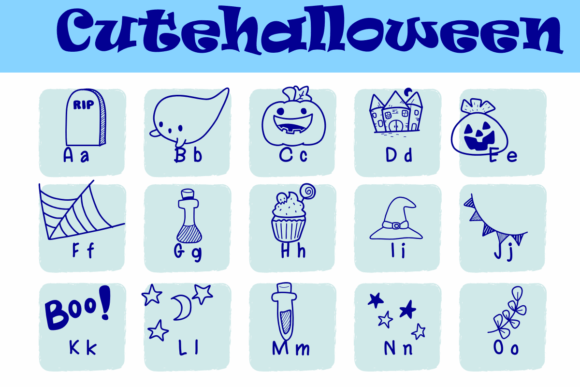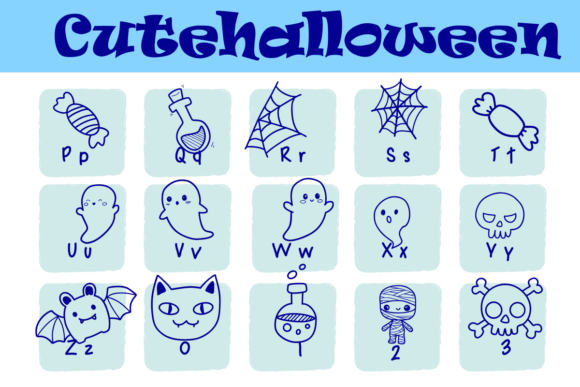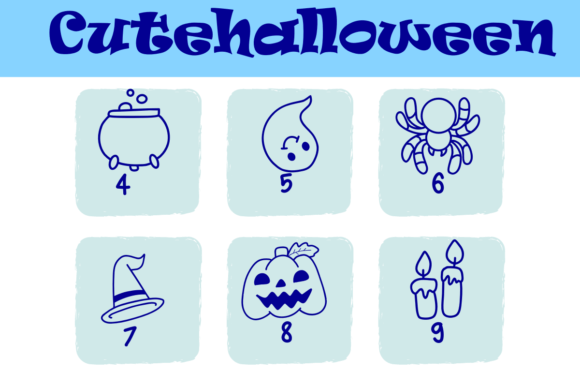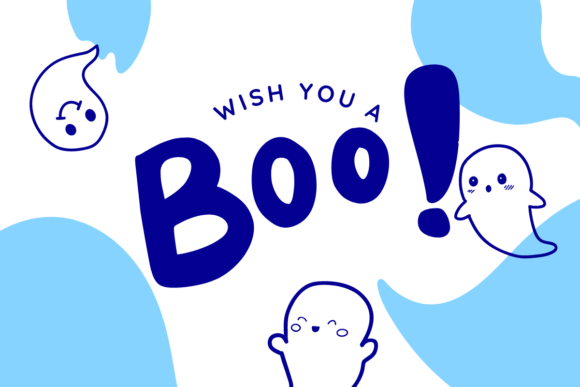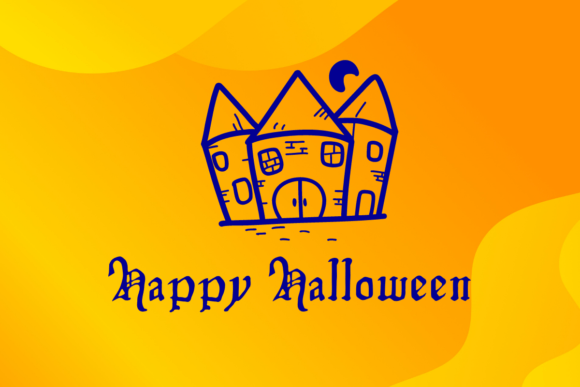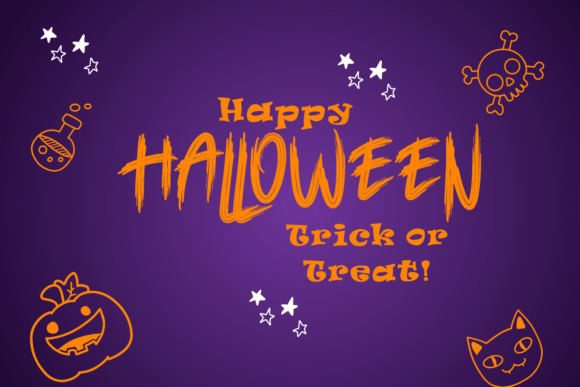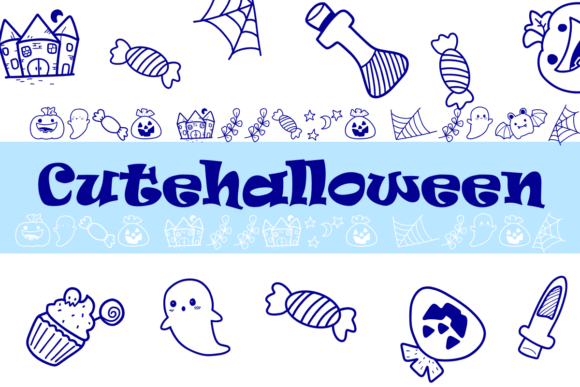
Cute Halloween Font: Add a Spooky Touch to Your Creative Projects
Are you looking for a unique and creative way to add a spooky touch to your Halloween-themed projects? Look no further than the Cute Halloween font, a dingbats font with a theme that’s perfect for a variety of creative endeavors. In this article, we’ll take a closer look at the Cute Halloween font, its features, and how you can use it to enhance your designs.
What is Cute Halloween Font?
Cute Halloween is a dingbats font with a theme that’s designed to bring a touch of whimsy and spookiness to your creative projects. The font features a sketch style that’s perfect for adding a personal and handmade touch to your designs. With its unique and playful characters, Cute Halloween is sure to make your projects stand out.
Features of Cute Halloween Font
The Cute Halloween font comes with a range of features that make it perfect for a variety of creative projects. Some of its key features include:
- Sketch style: The font features a sketch style that’s perfect for adding a personal and handmade touch to your designs.
- Dingbats theme: The font is designed with a dingbats theme that’s perfect for Halloween-themed projects.
- Unique characters: The font features unique and playful characters that are sure to make your projects stand out.
- Versatile: The font is versatile and can be used for a variety of creative projects, from wedding invitations to DIY crafts.
How to Use Cute Halloween Font
The Cute Halloween font is perfect for a variety of creative projects, including:
- Wedding invitations: Add a spooky touch to your wedding invitations with the Cute Halloween font.
- DIY crafts: Use the font to create unique and personalized DIY crafts, such as Halloween decorations and gift tags.
- Decorations: Create spooky and fun decorations with the Cute Halloween font, such as banners, garlands, and signs.
- Logos: Use the font to create unique and memorable logos for your business or brand.
- Social media graphics: Add a spooky touch to your social media graphics with the Cute Halloween font.
Benefits of Using Cute Halloween Font
There are many benefits to using the Cute Halloween font in your creative projects. Some of the benefits include:
- Unique and creative: The font is unique and creative, making it perfect for adding a personal touch to your designs.
- Versatile: The font is versatile and can be used for a variety of creative projects.
- High-quality: The font is high-quality and features a range of unique and playful characters.
Tips for Using Cute Halloween Font
Here are a few tips for using the Cute Halloween font in your creative projects:
- Experiment with different sizes: Experiment with different sizes to find the perfect size for your project.
- Combine with other fonts: Combine the Cute Halloween font with other fonts to create a unique and interesting design.
- Use in combination with images: Use the font in combination with images to create a visually interesting design.
- Have fun: Most importantly, have fun and be creative with the Cute Halloween font!
The Cute Halloween font is a unique and creative way to add a spooky touch to your Halloween-themed projects. With its sketch style and dingbats theme, this font is perfect for a variety of creative endeavors, from wedding invitations to DIY crafts. Whether you’re a designer, crafter, or DIY enthusiast, the Cute Halloween font is sure to inspire your creativity and help you create unique and memorable designs.